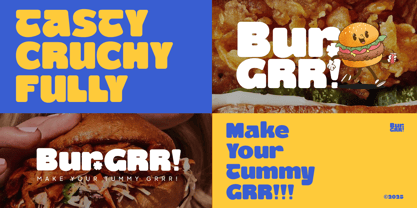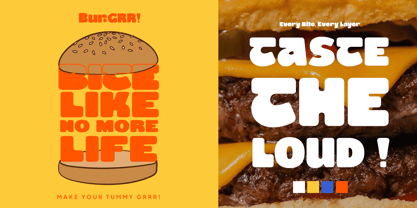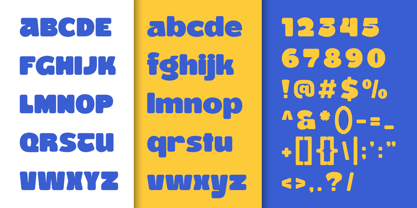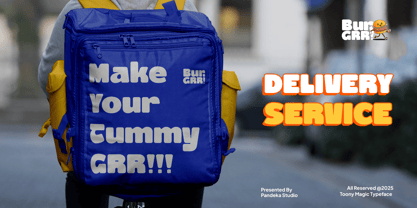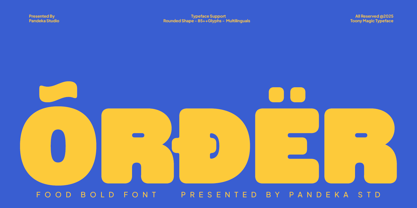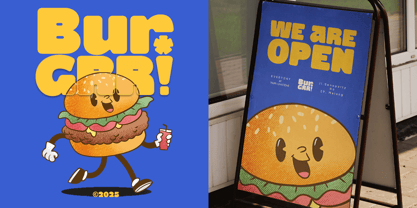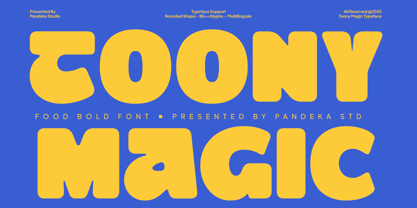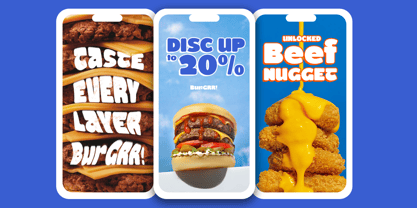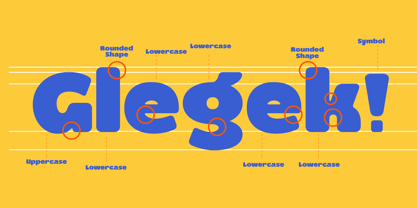
Toony Magic
by Pandeka Studio
The Toony Magic Font Family was designed by Sagara Nararya and published by Pandeka Studio. Toony Magic contains 1 styles. More about this family
Toony Magic is a fun and chunky display font that bursts with energy and personality. Inspired by playful food branding and bold retro lettering, this typeface brings a lively and cheerful vibe to every design. It’s perfect for restaurant logos, packaging, social media posts, or anything that needs a punch of appetizing creativity.
With its rounded edges and bouncy letterforms, Toony Magic gives a sense of friendliness and joy, ideal for burger joints, snack brands, bakeries, or kid-friendly designs. Every letter looks deliciously bold and inviting, making your project stand out with irresistible charm.
Toony Magic comes in one regular style, supporting uppercase, lowercase, numbers, punctuation, and multilingual characters, making it versatile for both print and digital use.
Designers: Sagara Nararya
Foundry: Pandeka Studio